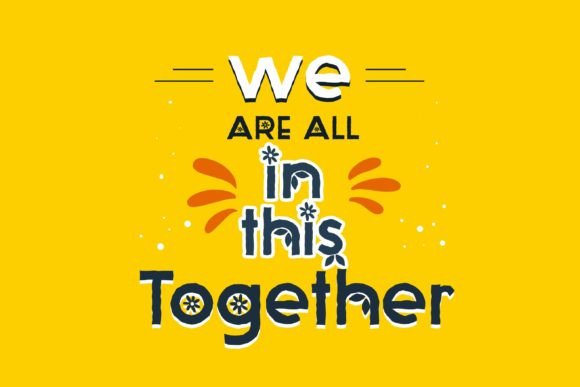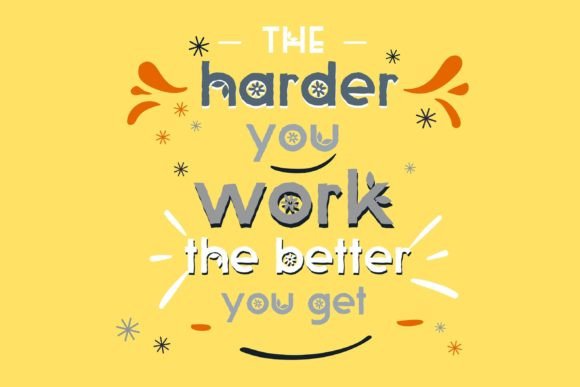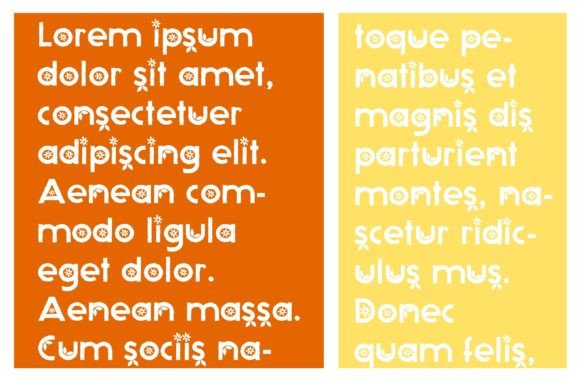
Introduction to Daisyville Font
Daisyville is a charming display font that exudes quirky playfulness.
Its delightful daisy-shaped letters bring a touch of whimsy to any design project With its unique style and cheerful vibe, Daisyville is perfect for crafting eye-catching headlines, logos, and social media graphics.
Key Features of Daisyville Font
Why Choose Daisyville Font?
Daisyville Font offers exceptional quality and versatility, making it a valuable addition to your design toolkit. Whether you’re creating for personal projects or commercial use, Daisyville Font delivers professional results.